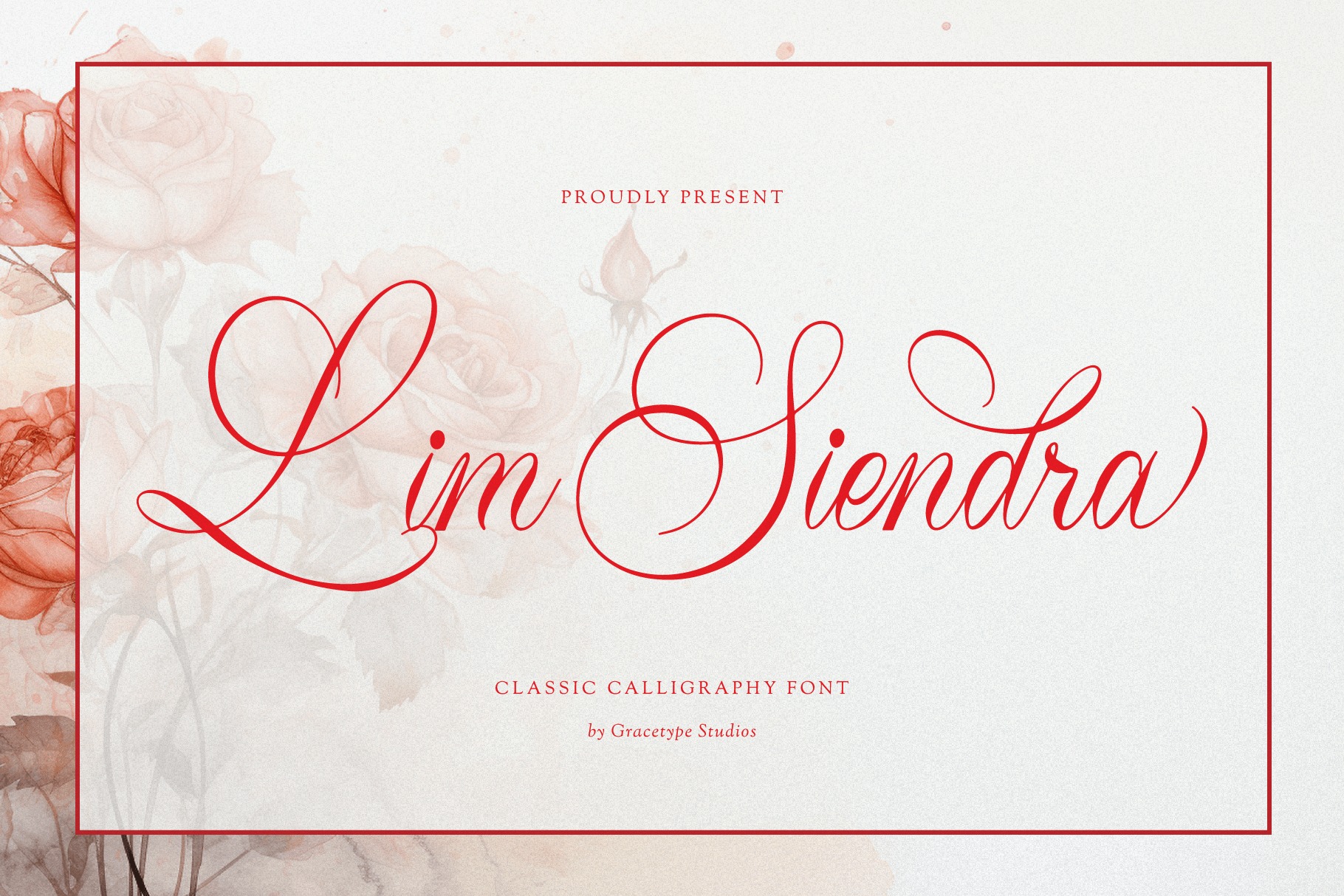
Lim Siendra – Elegant Calligraphy Font
Lim Siendra – Elegant Calligraphy Font is a premium-quality font developed to enhance your work with a polished, modern, and visually elevated look. Lim Siendra | Classic Calligraphy, from Gracetypestudio, suitable for any projects such as: logos, branding projects, homeware designs, product packaging, mugs, quotes, posters, shopping bags, t-shirts, book covers, name card, invitation cards, greeting cards, label, photography, watermark, special events, and all your other lovely projects that need a Calligraphy taste.